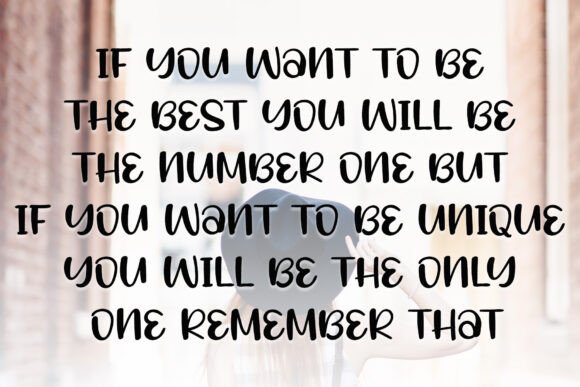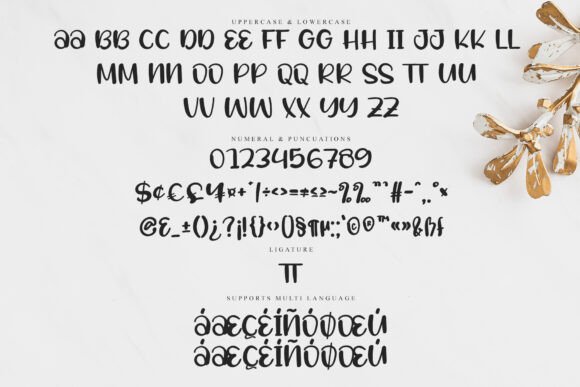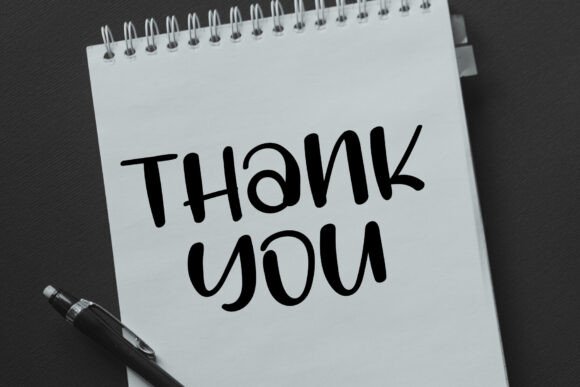
Introduction to Magic Writing Font
Have you ever been working on a creative project, pouring your heart and soul into it, and then suddenly, you need that one thing to make it truly stand out? For designers, this moment can be a game-changer. It’s the moment when the entire design comes together, and you know you’ve created something truly special.
For those who have been there, we’ve got the solution – the Magic Writing Font. This bold and captivating display font is designed to command attention, making it the perfect addition to any project that needs an eye-catching typographic style.
With its strong, distinctive letterforms, Magic Writing Font is a valuable resource for designers who want to add a touch of magic to their visuals. Whether you’re working on branding, posters, or digital designs, this high-quality font is sure to make your project shine.
Key Features of Magic Writing Font
- Unique, magical script style that adds a touch of whimsy and fantasy to any design
Honest Review: Magic Writing Font
I recently stumbled upon the Magic Writing Font, a free download that caught my attention for its unique and whimsical design. As a designer, I’m always on the lookout for high-quality design resources to elevate my creative projects.
- ✨ The font’s transparent background makes it easy to use as a design element in various creative projects, from digital art to print materials.
- ✨ The Magic Writing Font’s high quality and attention to detail make it a great addition to any design collection.
- ✨ The font’s versatility allows for a range of creative applications, from titles and headings to body text and decorative elements.
However, I did encounter some limitations with the font. ⚠️ The font’s size may not be suitable for very small or very large text, which could affect readability. Additionally, the font’s style may not be to everyone’s taste, which could limit its use in certain design projects.
Overall, I’m impressed with the Magic Writing Font’s unique design and high quality. While it may have some limitations, it’s a valuable addition to any design collection, especially for those working on creative projects that require a touch of whimsy and personality.
Common Use Cases for Magic Writing Font
The Magic Writing Font is ideal for creative projects, such as posters, flyers, and social media graphics. You can also use it for presentations, reports, and other documents where a unique and eye-catching font is required.